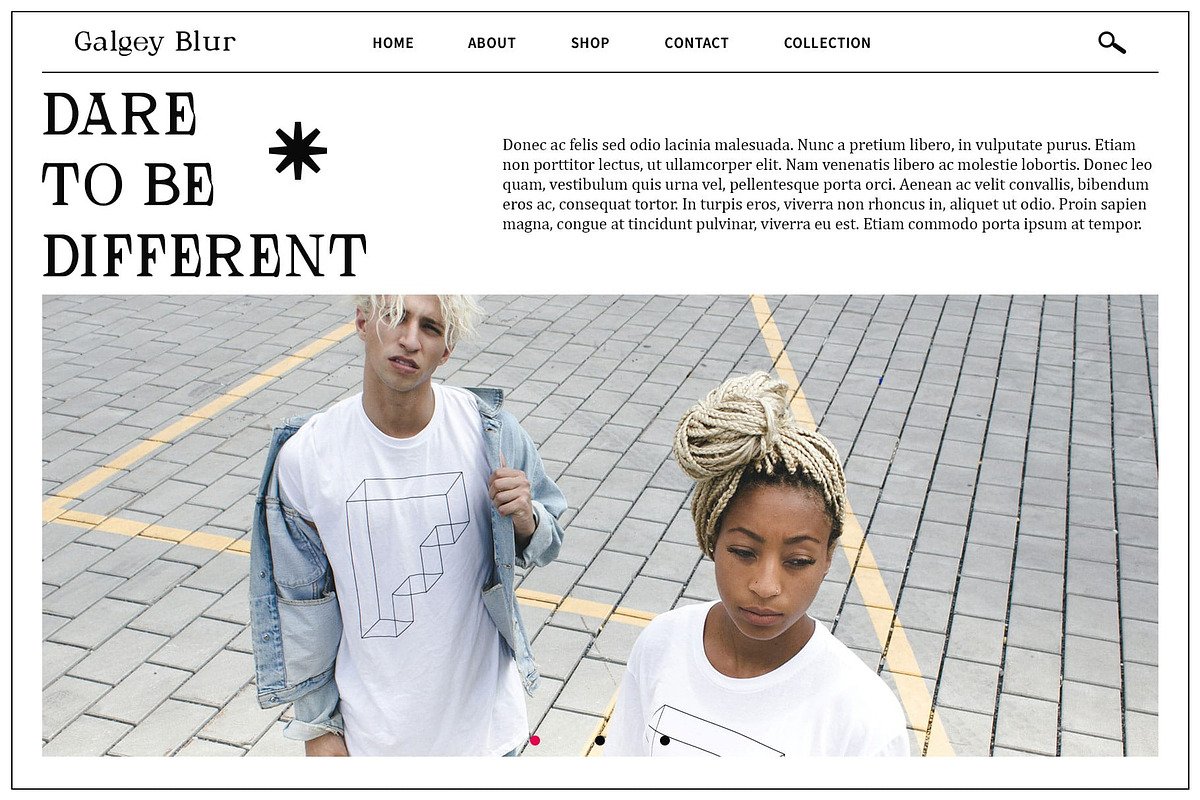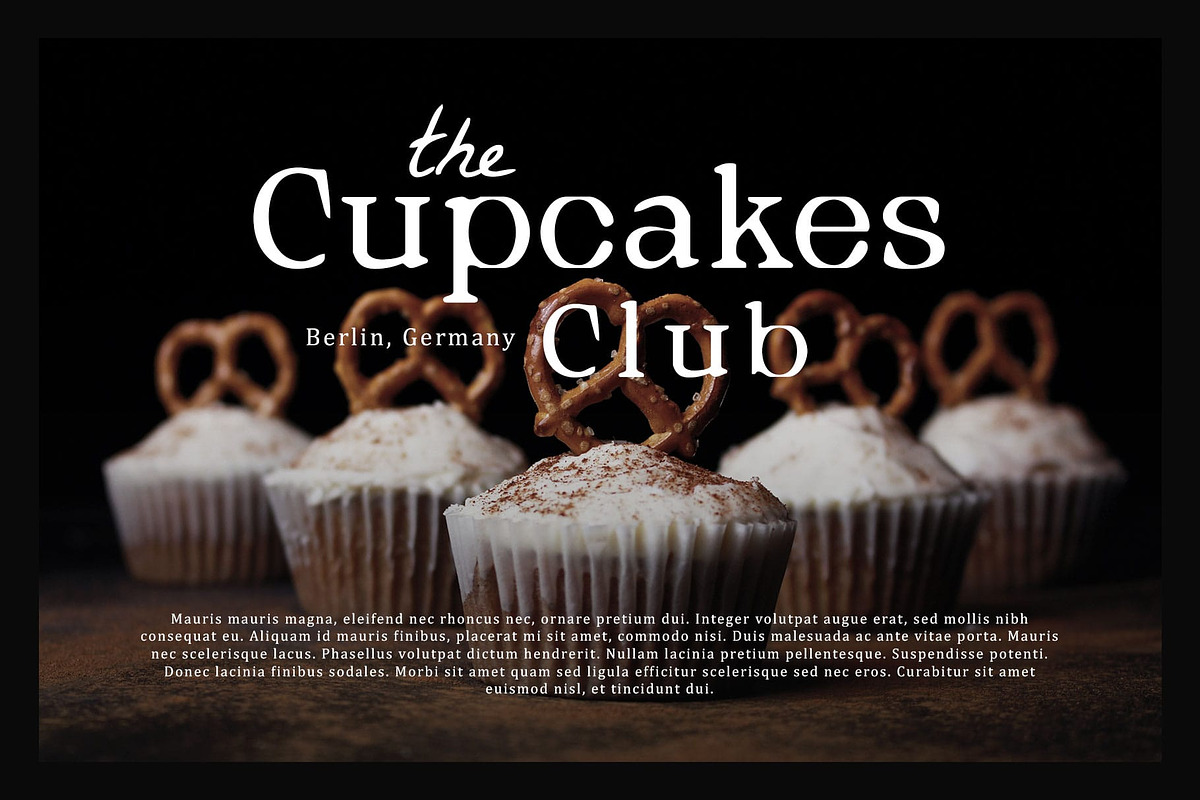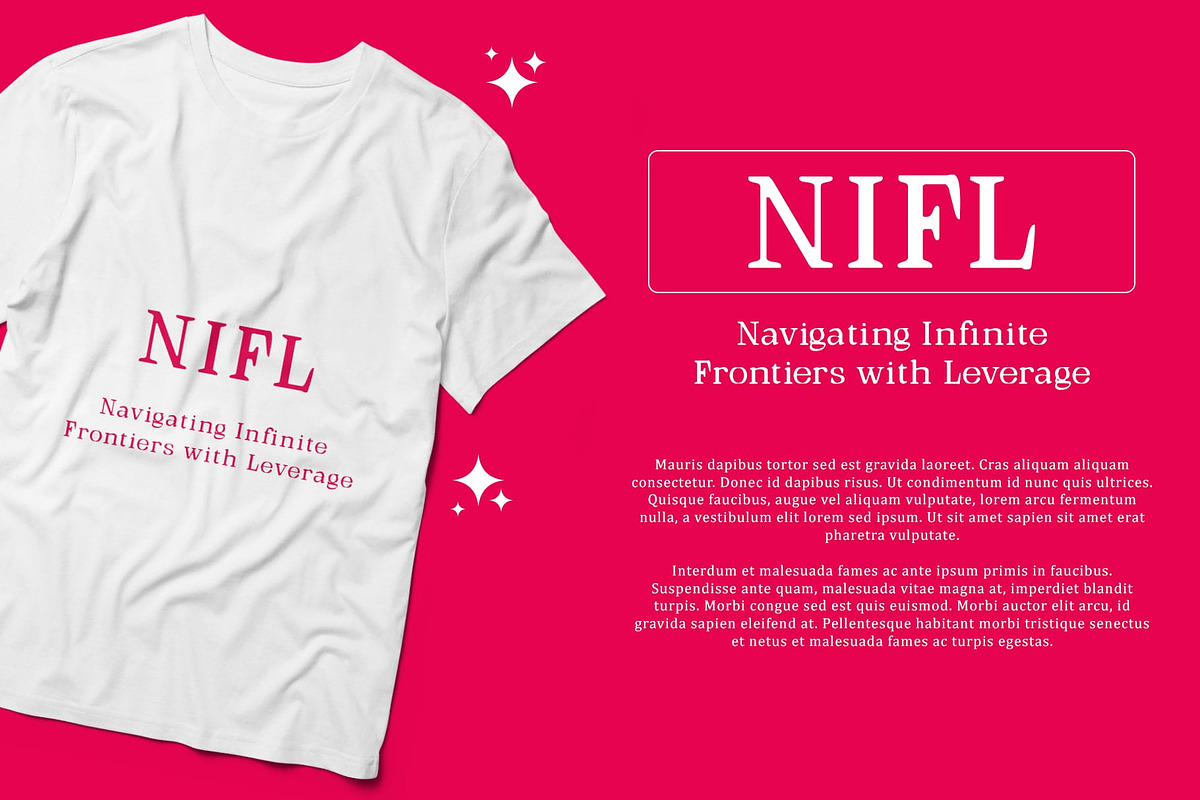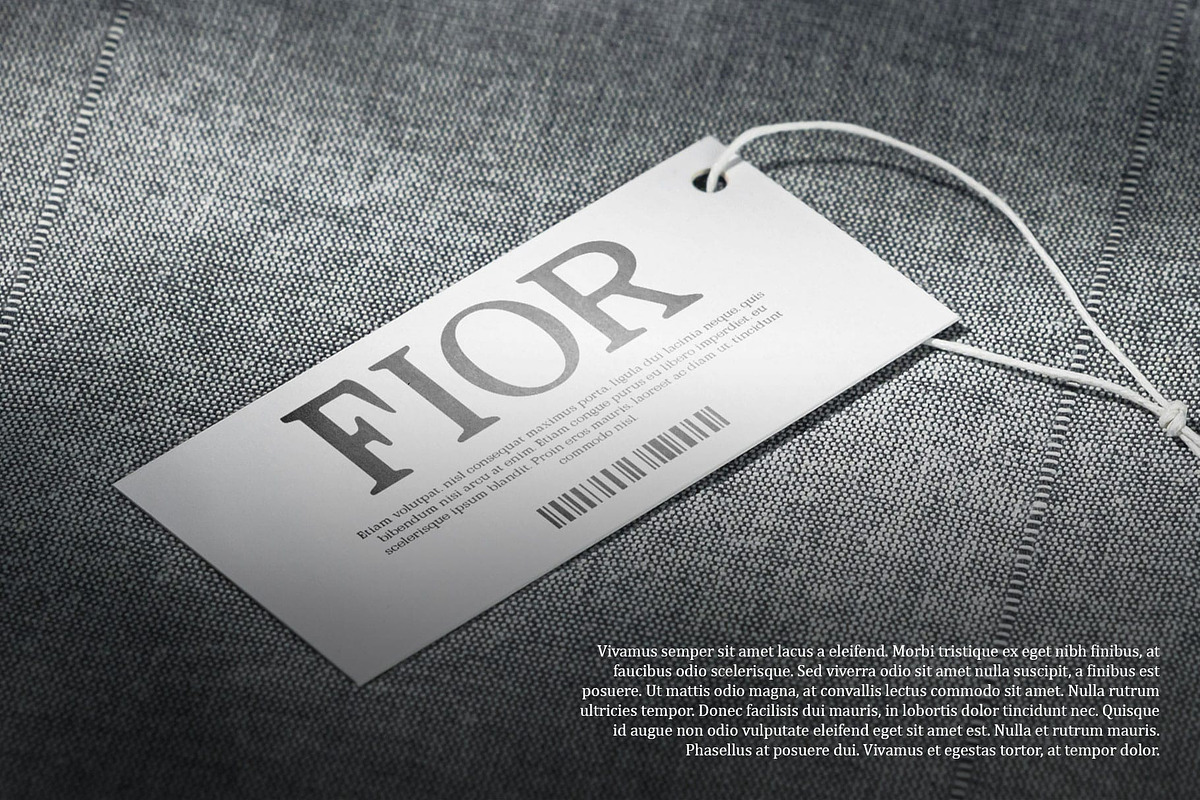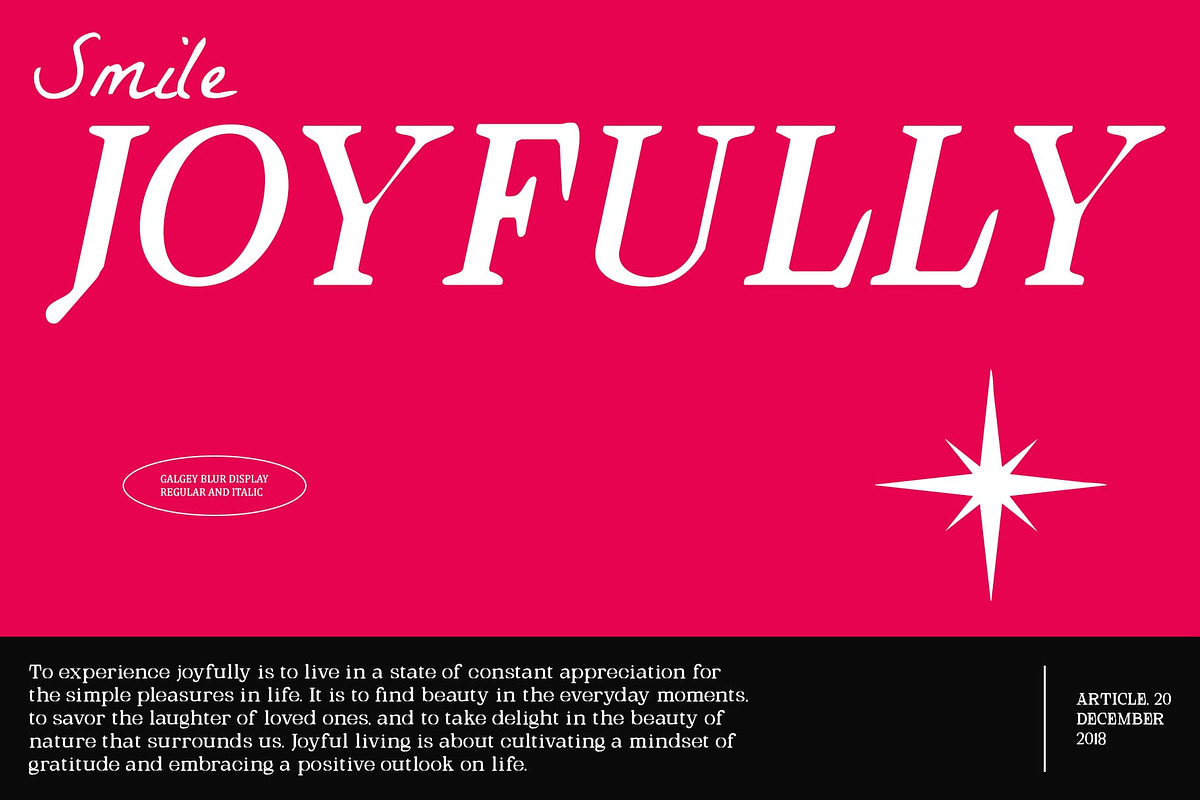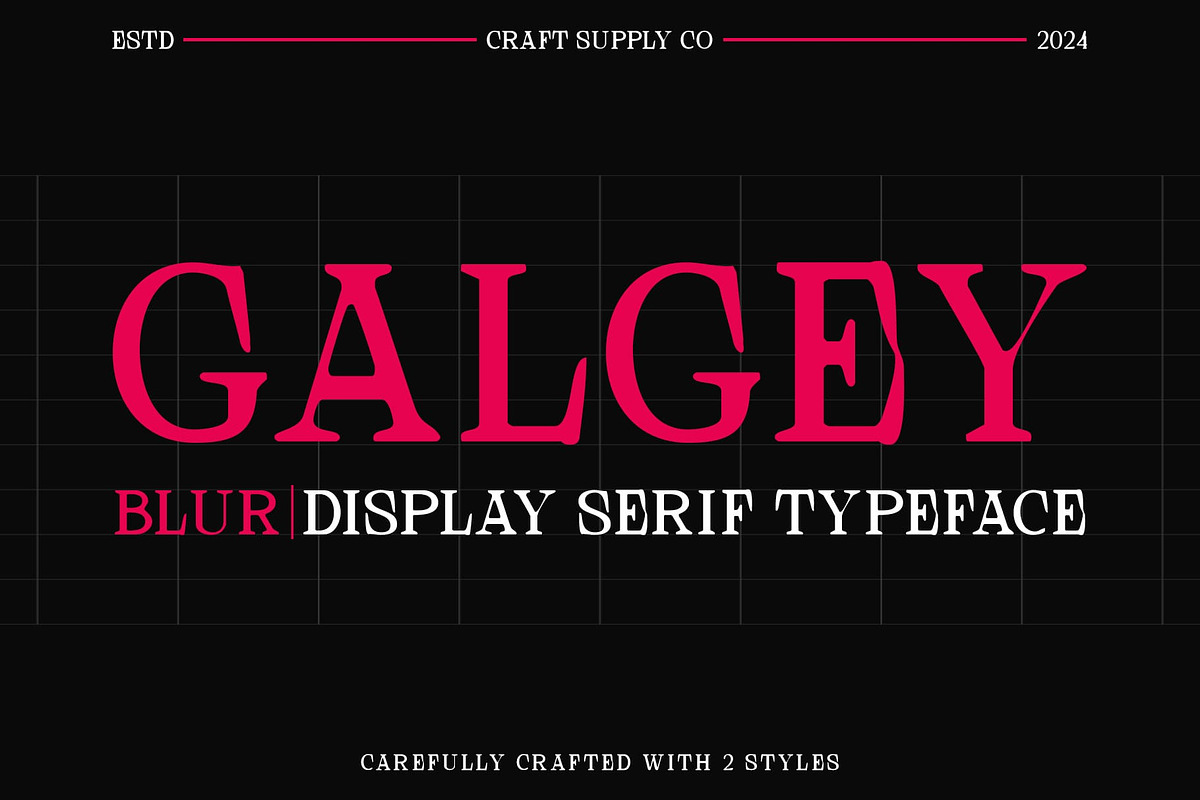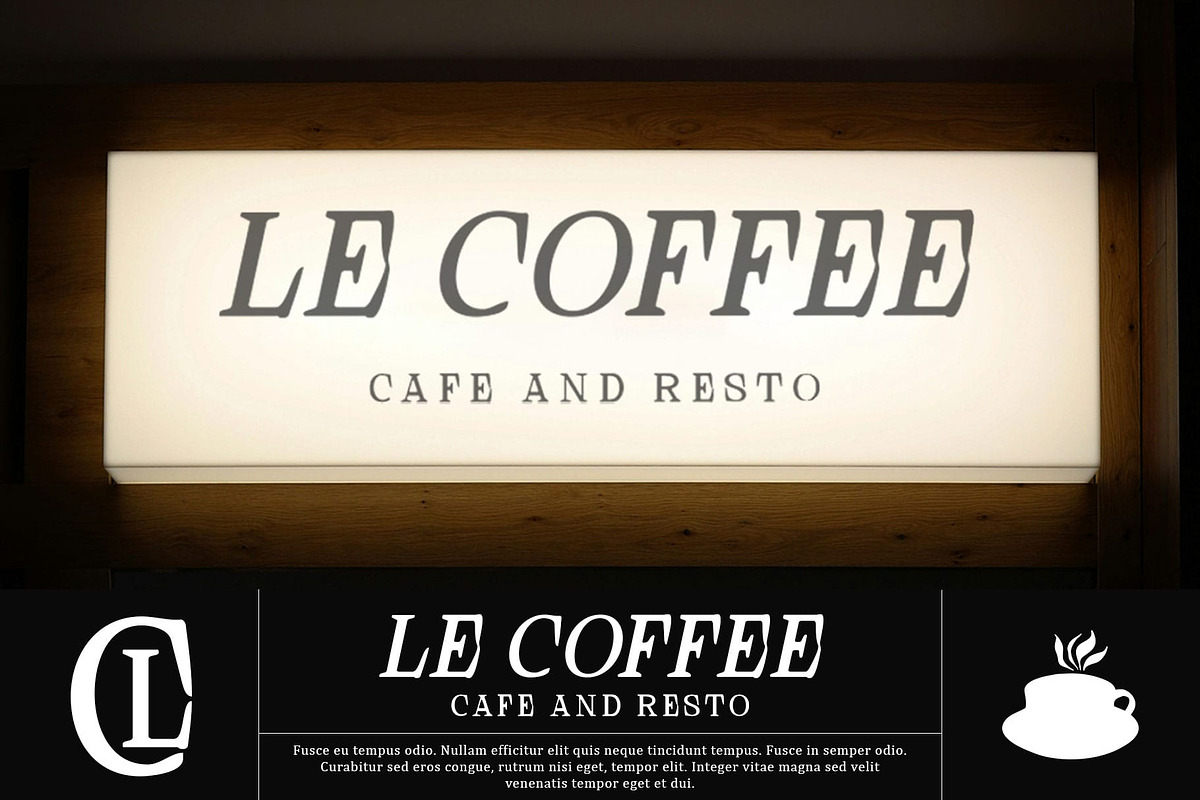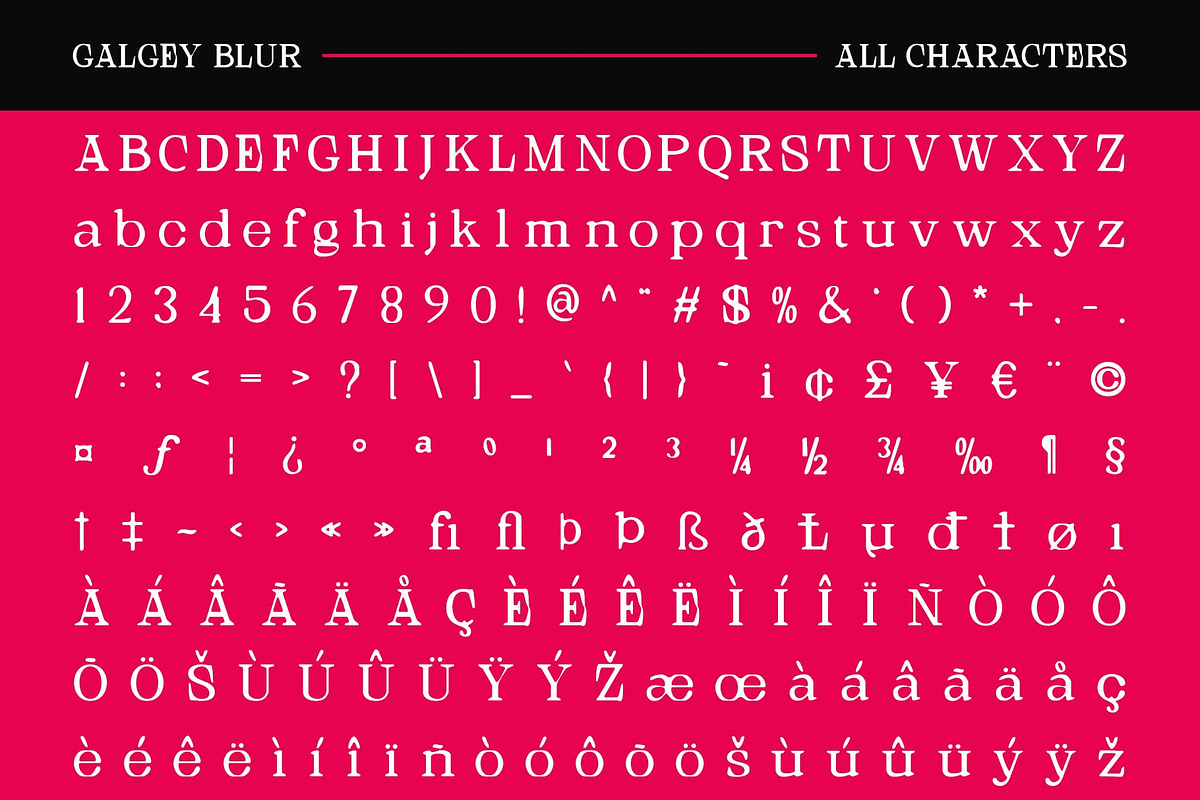
Galgey Blur
Galgey Blur Font – Elegant Didone Serif with a Modern Twist
Classic Elegance with a Modern Twist Galgey Blur is a distinguished serif font that draws inspiration from Didone styles, merging classic elegance with a contemporary twist. This typeface features prominent thick vertical strokes and delicate thin horizontal lines typical of Didone fonts, offering a formal and refined look.
Distinctive Design Elements The font’s distinctive slim serifs and sharp terminal ends enhance its sophisticated charm. The blur effect, subtly applied to the design, softens the font’s fine details, creating a nuanced and slightly enigmatic visual. This effect introduces a modern and artistic dimension, blending traditional sophistication with a touch of contemporary innovation.
Captivating and Elegant Visual Touch Galgey Blur provides a striking balance between classic luxury and modern flair. Its elegant and captivating appearance makes it perfect for high-end editorial projects, luxurious invitations, and refined branding materials. Whether used for sophisticated editorial layouts or exclusive branding, Galgey Blur brings a unique blend of timeless elegance and modern creativity to any design project.
- Galgey Blur Regular
- Galgey Blur Italic